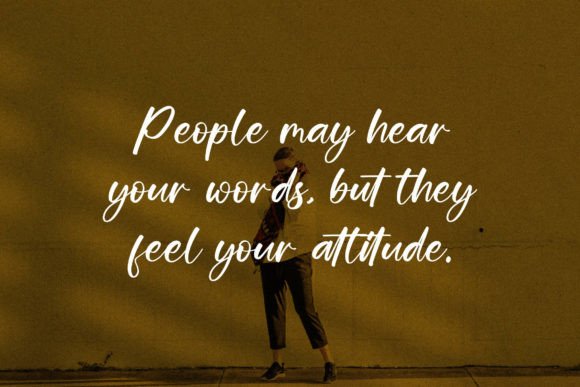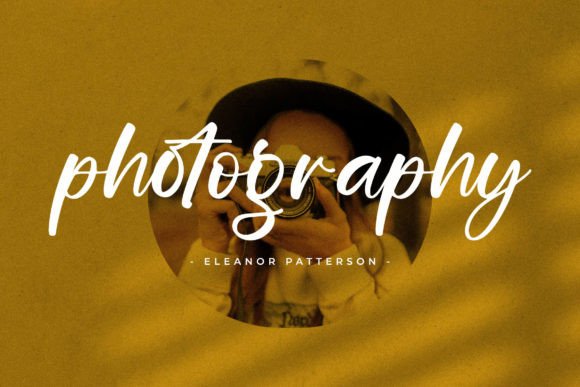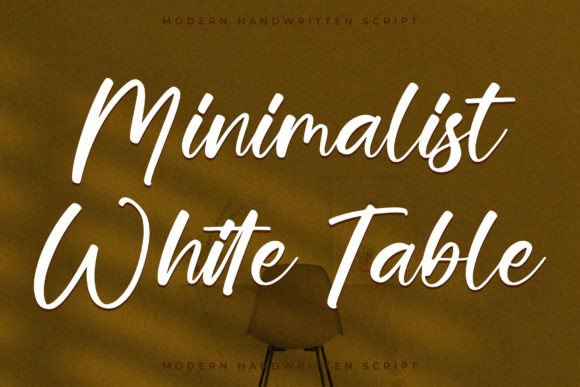
Introduction to Mathisde Font
Have you ever stumbled upon a beautifully handwritten note in an old journal or a vintage postcard, and felt inspired to bring that same creative touch to your projects? That’s exactly what the Mathisde Font does – it brings a touch of elegance and whimsy to your designs, making them truly special.
As a designer, you’re constantly on the lookout for high-quality design resources that can elevate your work and help you stand out in a crowded market. The Mathisde Font is a valuable addition to any design arsenal, offering a unique and modern handwritten style that’s perfect for a wide range of creative projects.
Key Features of Mathisde Font
- High-quality design resource with a unique, creative style, ideal for various projects and designs.
- Mathisde Font is designed to be highly legible, even at high resolutions, ensuring crisp and clear text in various design applications.
Honest Review: Mathisde Font
As a designer, I’m always on the lookout for high-quality design resources to elevate my creative projects. Recently, I stumbled upon the Mathisde Font, which I’ll be sharing my honest review of.
Here are some things that work well:
- ✨ Transparent background option for seamless integration
However, there are some limitations:
- ⚠️ Limited font styles and variations available
- ⚠️ May not be suitable for complex or lengthy text-based projects
Overall, I’m impressed with the Mathisde Font’s potential to elevate my creative projects. While it may not be perfect, its high-quality design and free availability make it a great addition to any designer’s toolkit.
Tips for Getting the Most Out of Mathisde Font
To get the most out of the Mathisde Font, use it in combination with other design elements to create a unique and eye-catching design. Experiment with different font sizes, colors, and combinations to find the perfect look for your project.
The Mathisde Font is perfect for use in a variety of creative projects, including logos, business cards, brochures, and social media graphics. Its high-quality design and transparent background make it easy to use in a variety of design contexts.